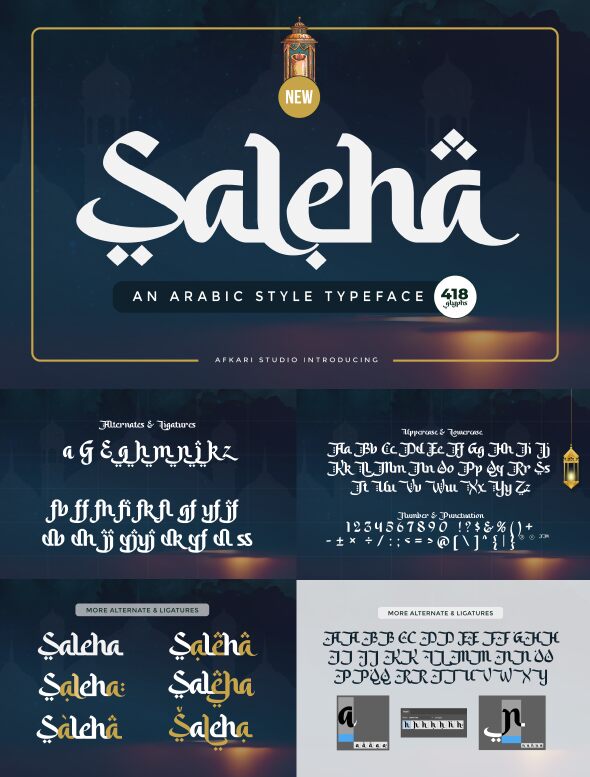
Saleha, the exotic font designed by Afkari Studio, brings a touch of Arabia to your projects. With its intricate Arabic style, this foreign font is perfect for adding an air of elegance and sophistication to your designs. The unique curves and flourishes of Saleha make it suitable for a wide range of projects, from luxury branding to wedding invitations. Use it to create stunning logos or headlines that demand attention. Whether you're designing for print or digital media, Saleha will add a touch of magic to your work and leave a lasting impression on your audience.
Saleha
Afkari Studio